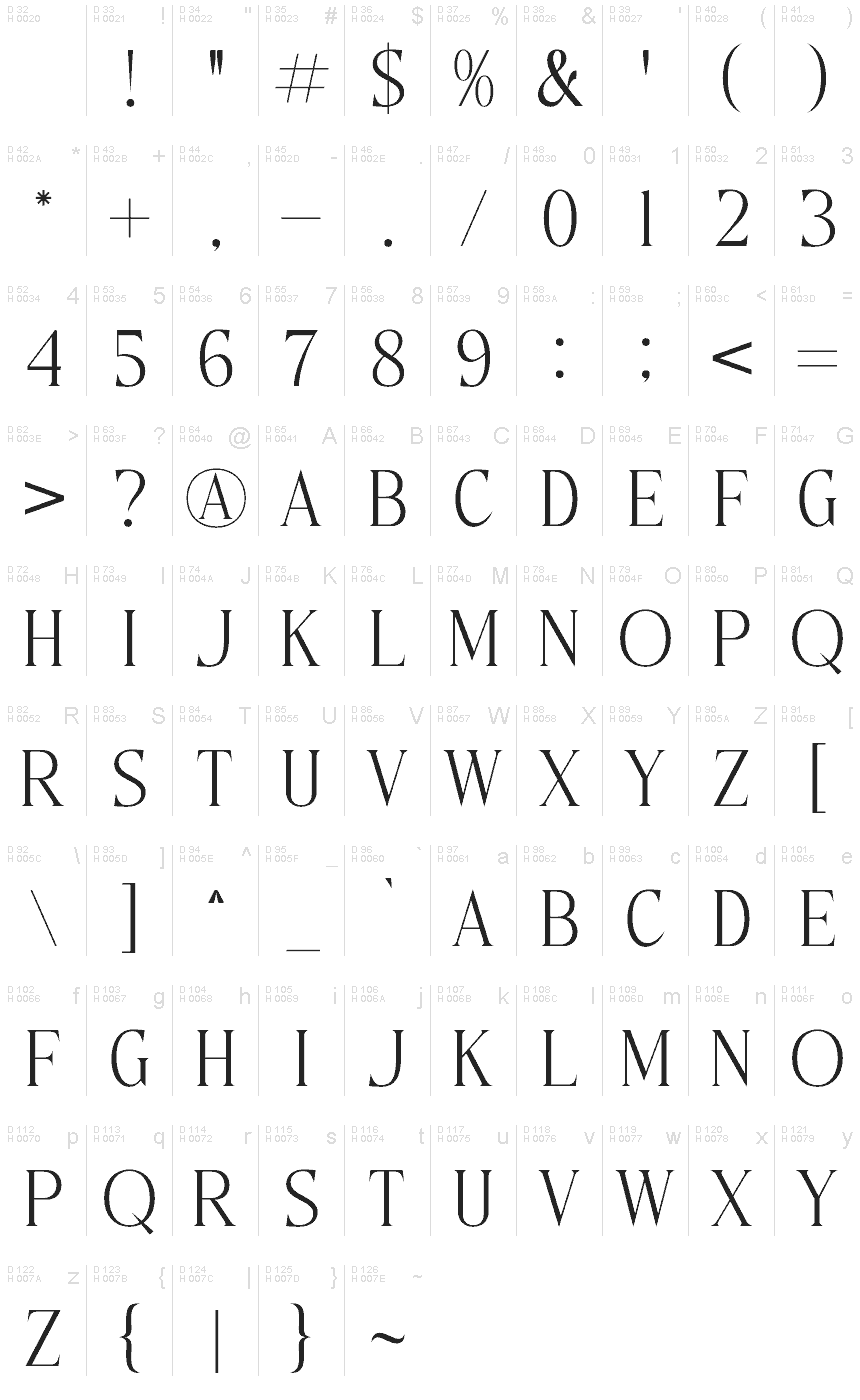
Merogza
Merogza font designed by Storytype Studio is a charismatic display typeface. Its elements include condensed width, elegant strokes, and a regular weight that contributes to its harmony. Additionally, it can be used for small or long texts, while headlines in caps look more compelling.